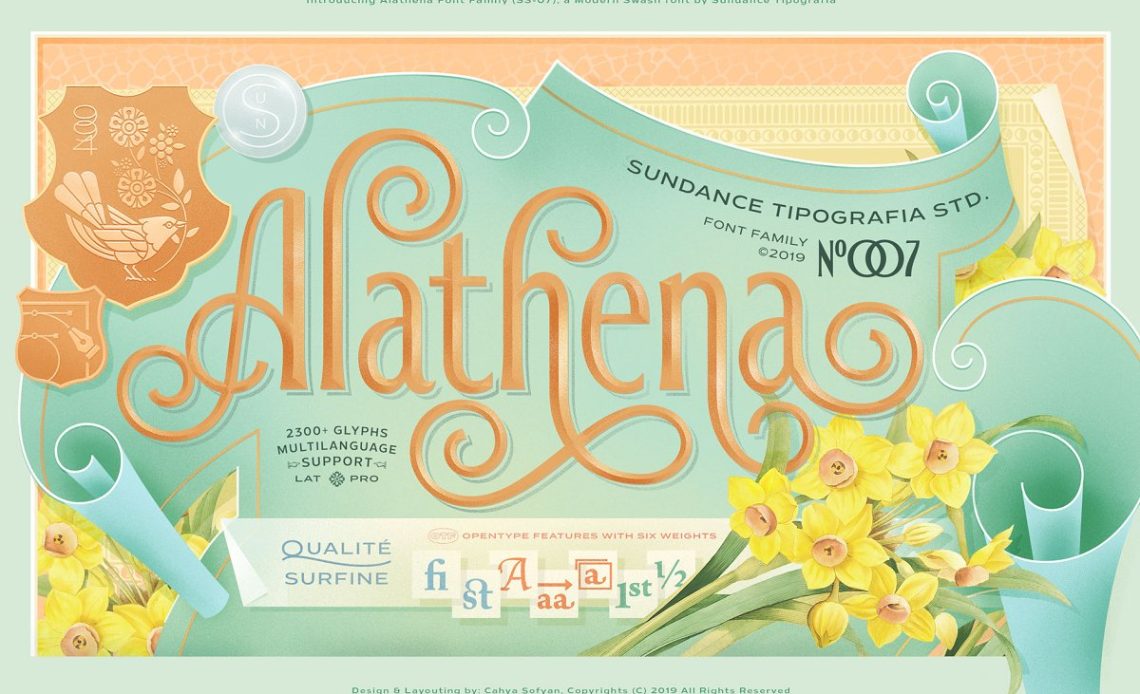
Introducing the Alathena Font Family, a stunning collection of fonts that will take your designs to the next level. Inspired by the captivating art decade from art nouveau to art deco in France, this font family is a true masterpiece created by Studio Sun*.
With its two distinct styles, Alternative swash and Modern deco, Alathena Font Family offers a unique blend of elegance and modernity. Its modified ligatures add a touch of sophistication to any design, making it perfect for creating eye-catching infographics.
But the beauty of Alathena Font Family doesn't stop there. It comes in six different weights, including Thin, Extra Light, Light, Regular, Bold, and Extra Bold. This versatility allows you to choose the perfect weight for your project, ensuring that your designs truly stand out.
One of the standout features of Alathena Font Family is its extensive language support. With over 75 supported languages, including Latin Pro, you can confidently create designs in various languages without any limitations. Whether you're targeting a global audience or need to incorporate special characters, Alathena Font Family has got you covered.
But what truly sets Alathena Font Family apart is its incredible set of features. It includes matching small caps for all weights, old style figures, full f ligatures, and over 400 swash characters. These additional elements give you the freedom to add flair and personality to your designs, making them truly unique.
Furthermore, Alathena Font Family offers automatic fractions and ordinals, making it a breeze to create professional-looking typography. And with its extended language support for most Latin-based Western and Central European languages, including all the swash and alternate characters, you can unleash your creativity without any limitations.
In conclusion, Alathena Font Family is the ultimate choice for anyone looking to create stunning and captivating designs. Its inspired art deco style, extensive language support, and incredible set of features make it a must-have for designers and creatives alike. Download Alathena Font Family today and elevate your designs to new heights.